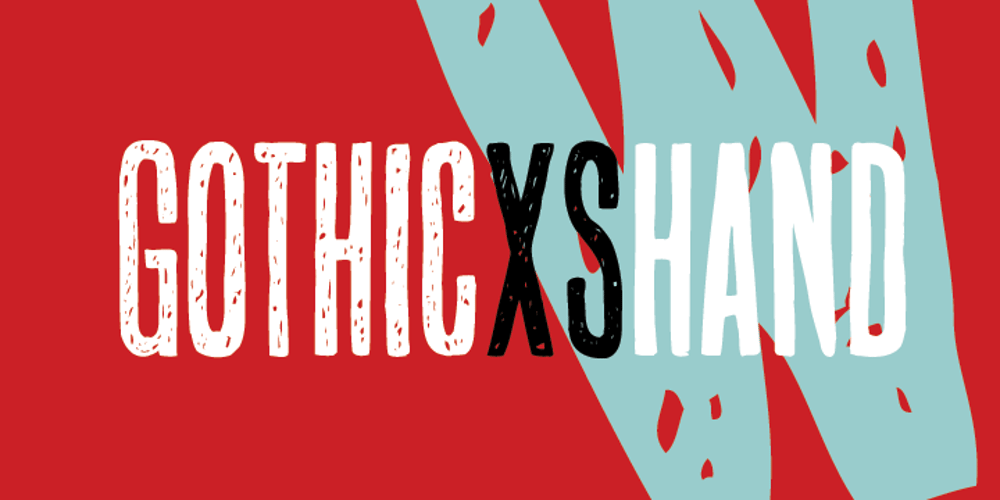
Gothic XS Hand Font Family was designed by Michel Troy and published by UrbanPixel. Gothic XS Hand contains 2 styles and family package options. This font is inspired by gothic woodtype fonts from the begining of the last century. Totally hand-drawn, every glyph is unique to improve the handwritten feeling. Different approaches are used to increase the human-hand look: many alternates, double letters, English bigrams, etc.